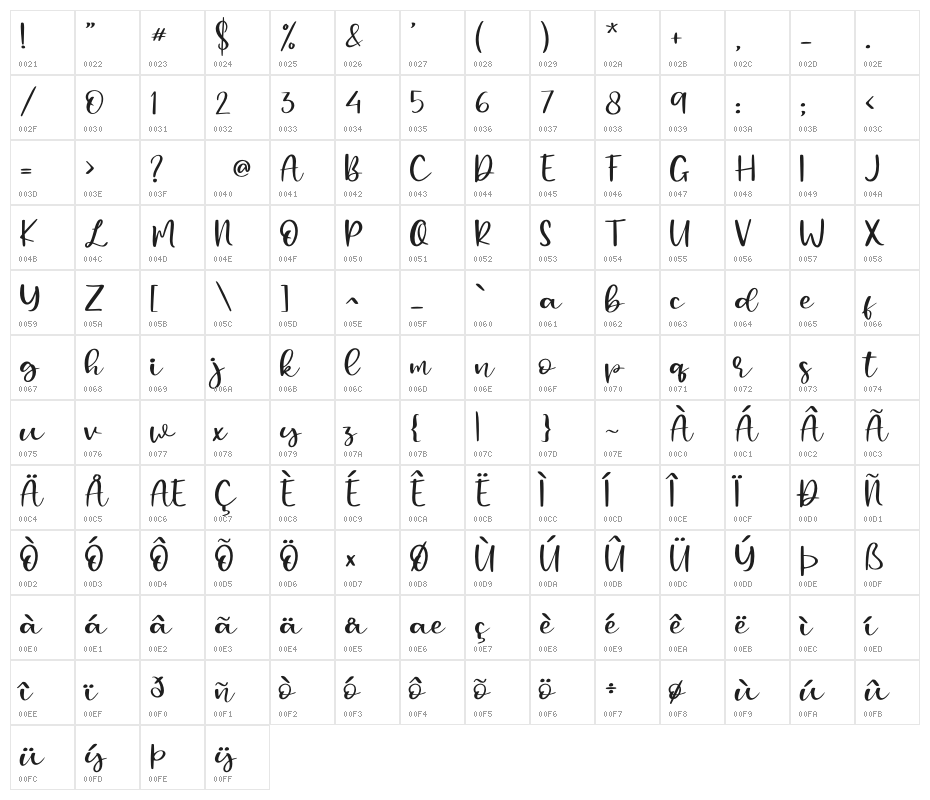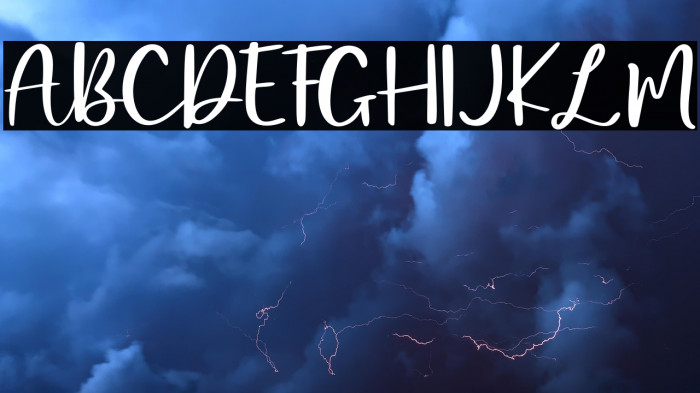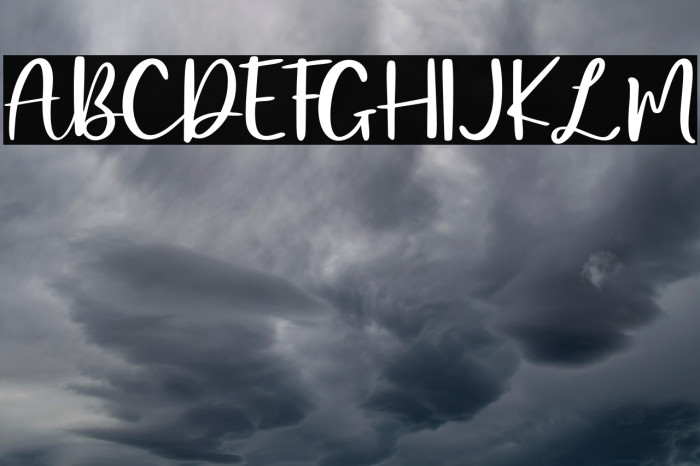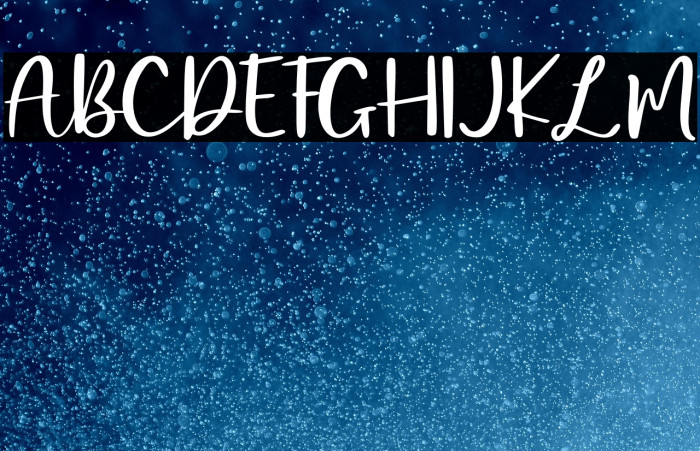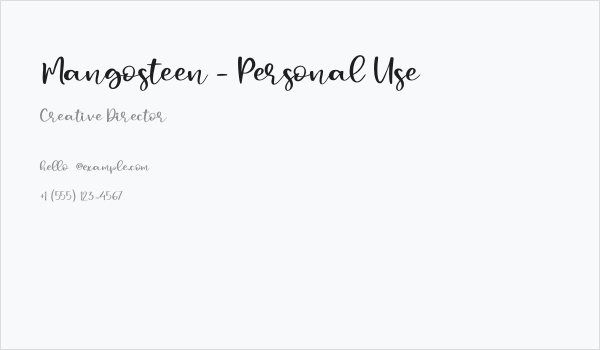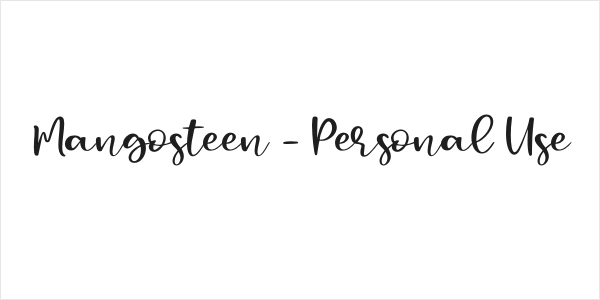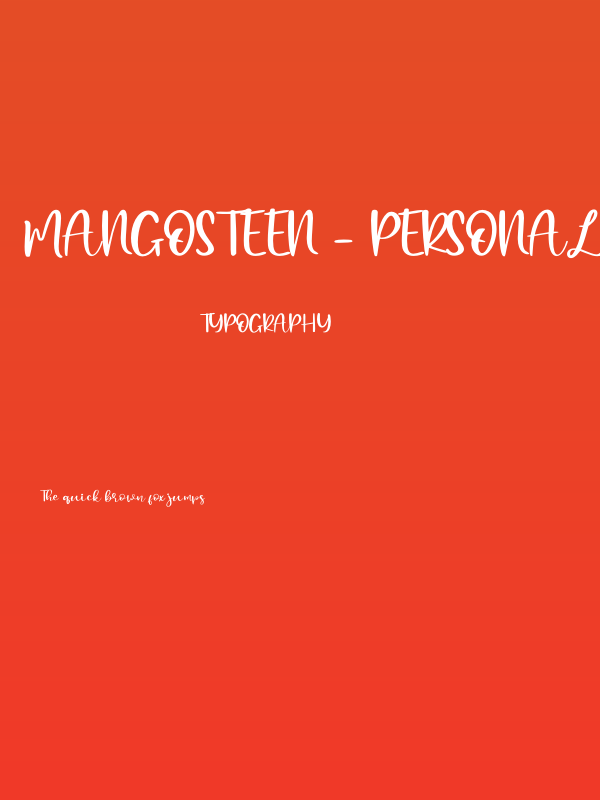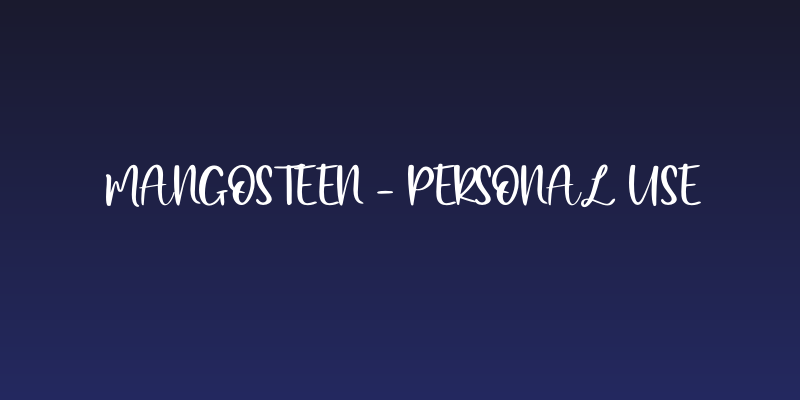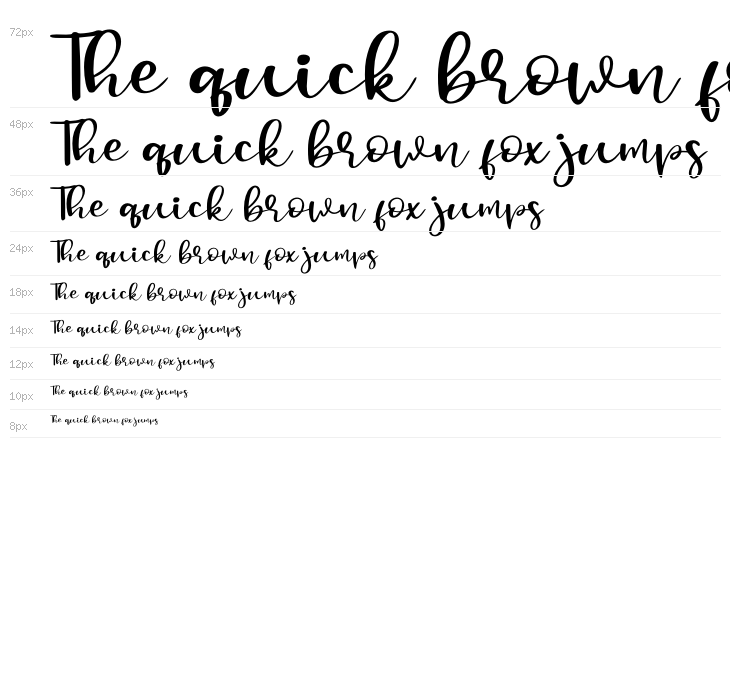
Mangosteen - Personal Use Font
Mangosteen - Personal Use Description
This font features a playful and energetic script style with a handwritten appearance. The letters are fluid and connected, giving a sense of movement and personality. The uppercase letters are bold and slightly slanted, while the lowercase letters maintain a consistent flow with loops and curves. The numerals are dynamic, matching the overall lively feel of the alphabet. Special characters are creatively integrated, maintaining the whimsical style. This font is ideal for projects that require a personal touch, such as invitations, greeting cards, or branding materials that aim to convey friendliness and approachability.
| Proposed Projects | Ideal for invitations, greeting cards, personal branding, and playful logos. |